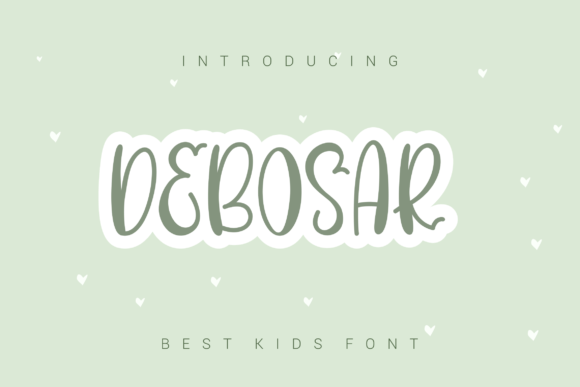
The Perfect Blend of Creativity and Authenticity: Introducing Debosar Font
As a designer, have you ever found yourself stuck in a creative rut, searching for the perfect font to bring your brand to life? The moment of inspiration can be a game-changer – the spark that ignites a new idea, a fresh perspective, or a bold statement. For many, this moment is what drives them to create something truly remarkable.
Enter Debosar Font, a bold and authentic handwritten font designed to elevate your branding projects. Whether you’re working on a logo, t-shirt printing, or export materials, Debosar Font is the perfect companion to help you make a lasting impression. Its versatility and uniqueness make it an invaluable asset for designers looking to add a personal touch to their work.
Debosar Font Key Features
- Font Family: Debosar, a unique and elegant script font designed to add a touch of sophistication to any design.
- Size: The font family includes a range of weights from Thin (100) to Bold (700), allowing for versatility in design applications.
- Resolution: Optimized for high-resolution displays, ensuring crisp and clear rendering on modern devices.
- Unique Characteristics: Features intricate connections, flowing lines, and subtle flair, making it ideal for creative and artistic projects.
- Character Set: Supports a wide range of languages, including Latin, Cyrillic, and Greek scripts, making it suitable for global design applications.
Debosar Font Review
First off, I want to say that Debosar Font is a unique and intriguing font that has its strengths. Here are a few things that I think work well:
- ✨ Its exotic and cultural vibe, which could be perfect for a specific type of design project, such as a travel brochure or a cultural event invitation.
- ✨ The font’s bold and expressive strokes give it a lot of character, making it great for headings and titles.
- ✨ The font’s OpenType features allow for a lot of flexibility and customization, which can be really useful for designers who want to add a personal touch to their designs.
However, I do think that Debosar Font has some limitations:
- ⚠️ The font can be a bit difficult to read in smaller sizes, especially for longer blocks of text. This could make it less suitable for body text or large amounts of text.
- ⚠️ The font’s unique style may not be to everyone’s taste, and some designers may find it too flashy or overwhelming.
Overall, I think Debosar Font is a solid choice for designers who are looking for something unique and eye-catching. While it may not be suitable for every project, it’s definitely worth considering for the right type of design.
Tips for Getting the Most Out of Debosar Font
Here are some tips to help you get the most out of Debosar Font:
- Use it for creative projects that require a unique and stylish font.
- Pair it with other fonts to create a visually appealing combination.
- Experiment with different font sizes and colors to create a bold and eye-catching effect.
Debosar Font is commonly used for:
- Graphic design projects.
- Typography-based art.
Alternatives to Debosar Font for Designers
Playfair Display is an elegant, high-end font perfect for luxurious and sophisticated designs. It’s ideal for headings and titles where you want to add a touch of luxury and sophistication. Compared to Debosar Font, Playfair Display has a more refined and classical feel, making it suitable for high-end brands and publications.
Bodoni is a classic, elegant font that exudes sophistication and refinement. It’s perfect for designs that require a touch of elegance and sophistication, such as fashion, luxury, and high-end branding. Compared to Debosar Font, Bodoni has a more classical and timeless feel, making it suitable for long-term branding and identity projects.
Great Vibes is a modern, elegant font that’s perfect for designs that require a touch of sophistication and elegance. It’s ideal for headings, titles, and body text where you want to add a touch of modernity and style. Compared to Debosar Font, Great Vibes has a more modern and sleek feel, making it suitable for contemporary branding and design projects.